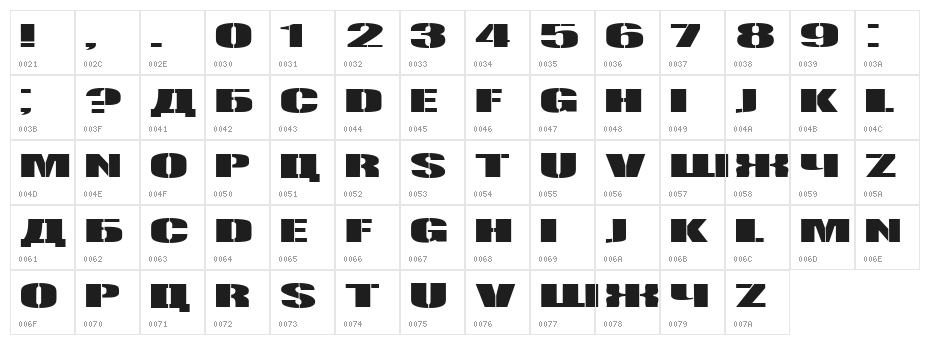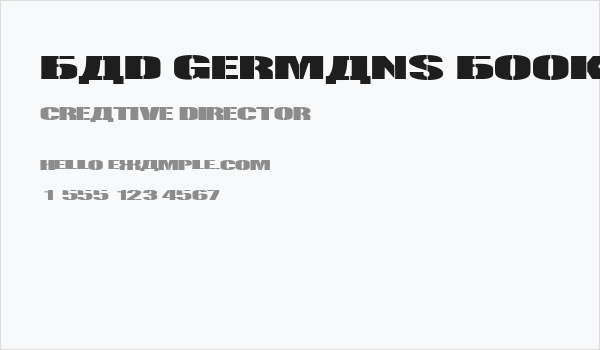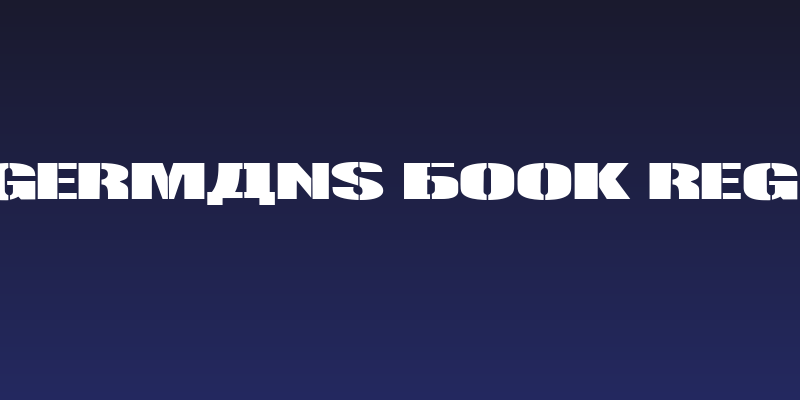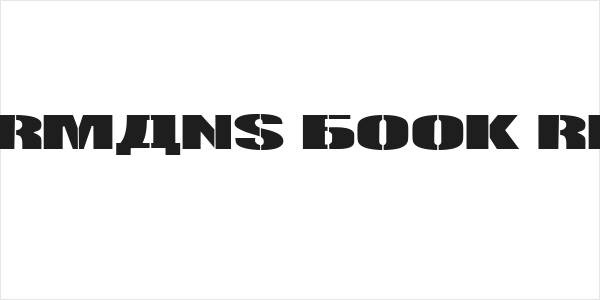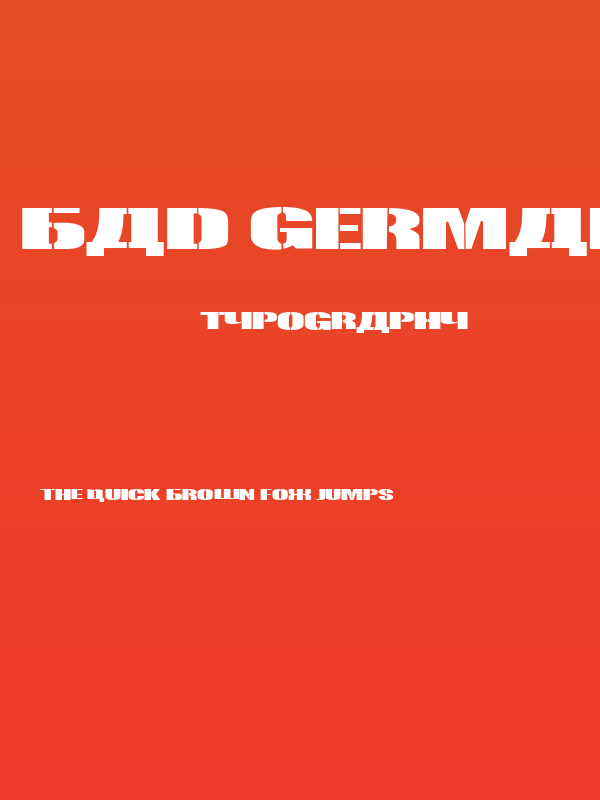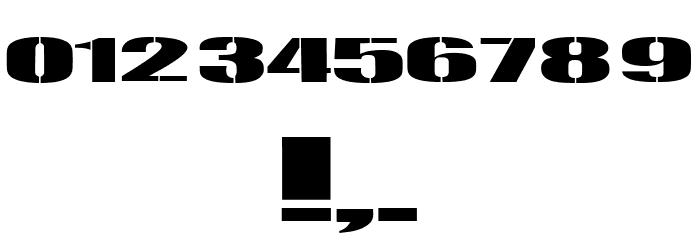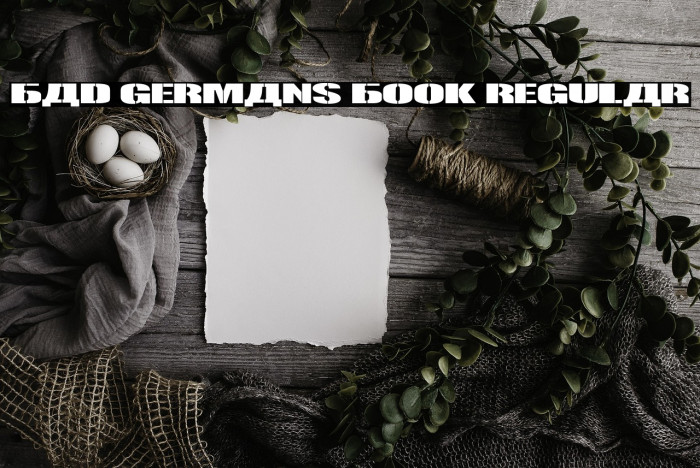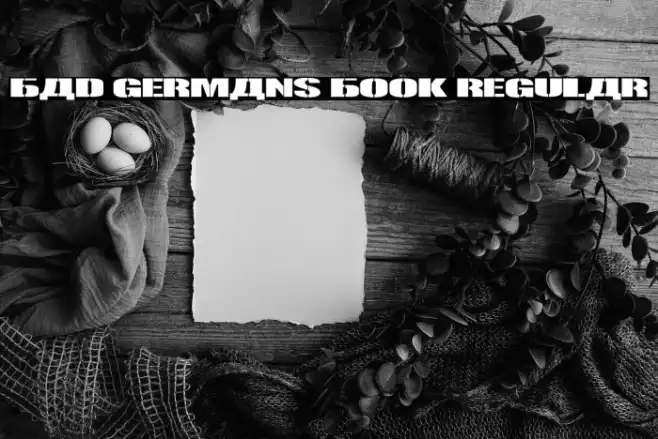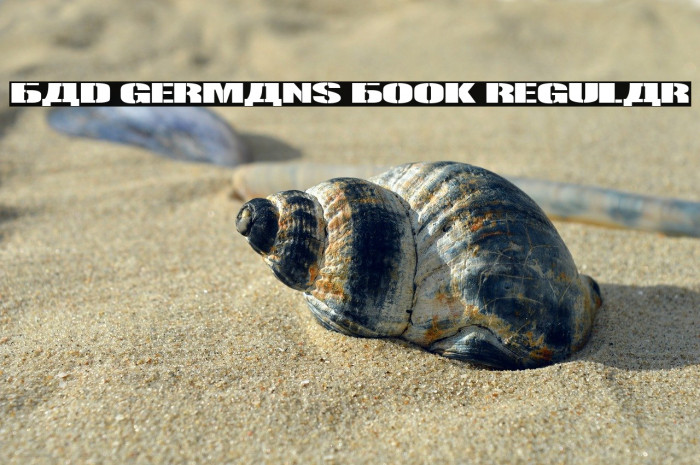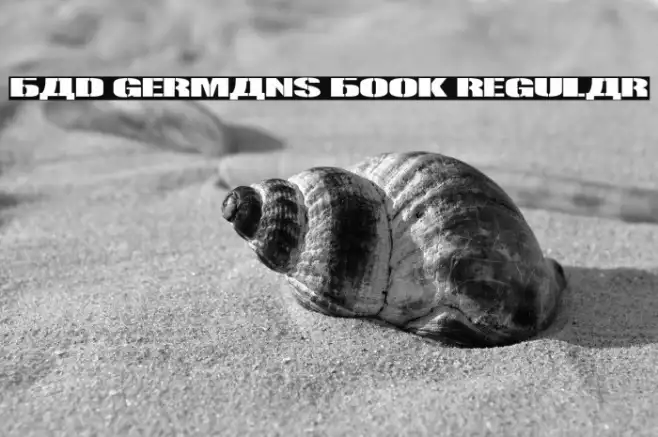
Bad Germans Book Regular Font
Bad Germans Book Regular Description
This font features a bold, geometric design with a strong, impactful presence. The characters are constructed with thick, block-like forms that create a sense of solidity and strength. The edges are sharp and angular, giving it a modern and industrial feel. The font includes both uppercase and lowercase letters, as well as numbers and a selection of special characters. The overall appearance is highly decorative, making it suitable for attention-grabbing headlines or logos. The uniformity in stroke width across all characters contributes to its cohesive and bold aesthetic.
| Proposed Projects | Ideal for use in branding, posters, headlines, and any project requiring a strong visual impact. |